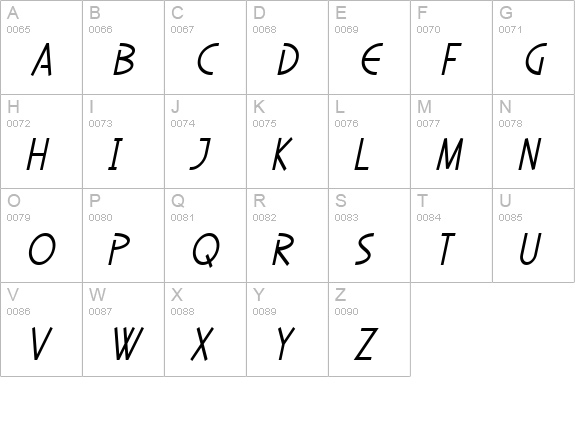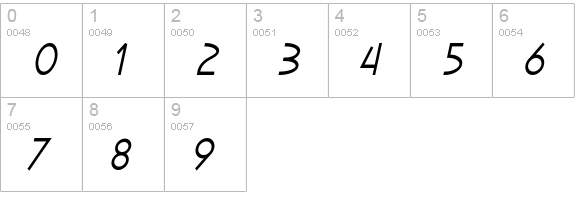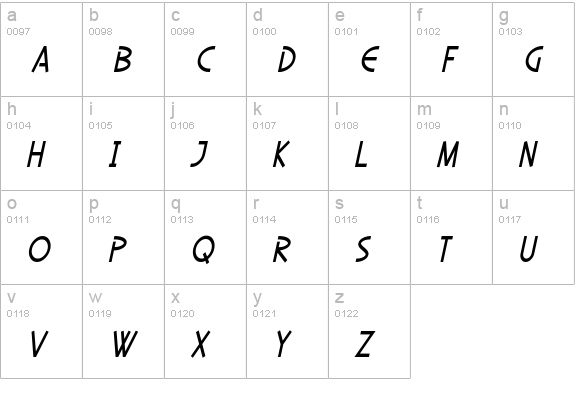
SF Diego Sans Condensed Oblique Font Details
SF Diego Sans Condensed Oblique is a distinctive, condensed-width, italic variant in the SF typeface family \xE2\x80\x94 well suited to design and typography projects.
SF Diego Sans Condensed Oblique font is a modern and versatile typeface that effortlessly combines elegance with readability. With its sleek and slanted design, this font adds a touch of sophistication to any project or design. Whether it's for a professional presentation, a stylish logo, or a trendy website, SF Diego Sans Condensed Oblique font will surely make a lasting impression. This font offers a wide range of characters, including uppercase and lowercase letters, numbers, punctuation marks, and special glyphs. Its condensed form makes it perfect for fitting more text into limited spaces without sacrificing legibility. The oblique slant adds an extra level of dynamism and visual interest to your designs. What makes SF Diego Sans Condensed Oblique font even more appealing is that it is freely available to download at FontsMarket.com. This means that you can enjoy all its features and benefits without spending a dime. Whether you are a professional designer or someone looking to add a touch of style to your personal projects, this font is the perfect choice. With SF Diego Sans Condensed Oblique font, you can effortlessly create stunning designs that will captivate your audience and leave a memorable impression. Its versatility and elegance make it suitable for a wide range of applications, from branding and advertising to web design and print materials. So why wait? Head over to FontsMarket.com and download SF Diego Sans Condensed Oblique font today. Enhance your designs with this free and stylish typeface that will surely elevate your work to new heights.